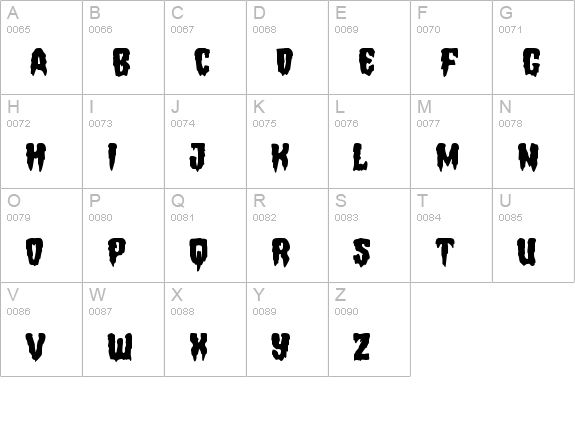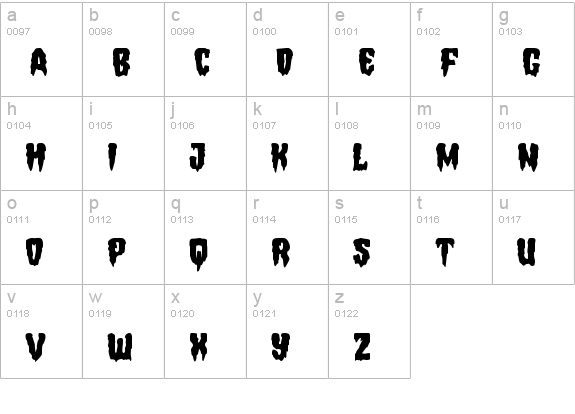
Hemogoblin Font Details
Hemogoblin font is a modern and edgy typeface that is perfect for making a bold statement. With its sharp angles and unique shapes, Hemogoblin exudes a sense of strength and confidence. This font is ideal for creating eye-catching headlines, logos, and branding materials.